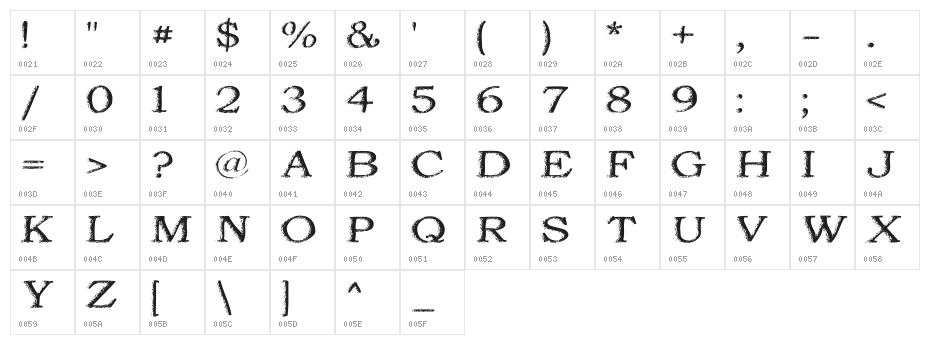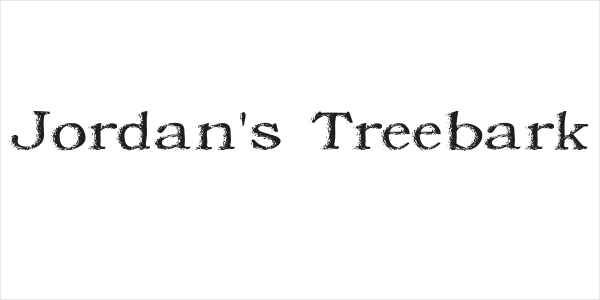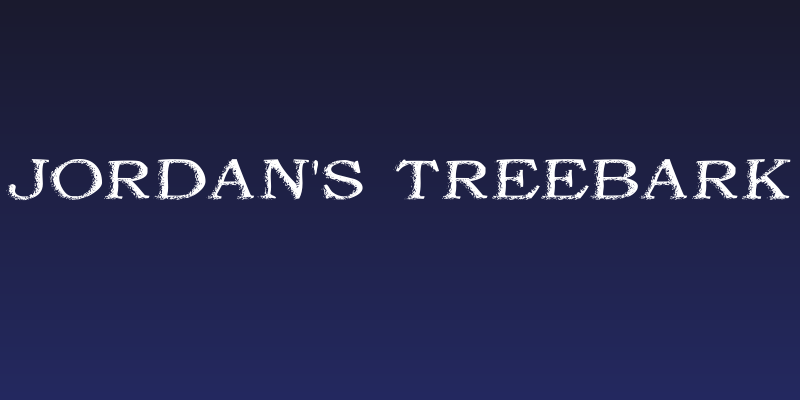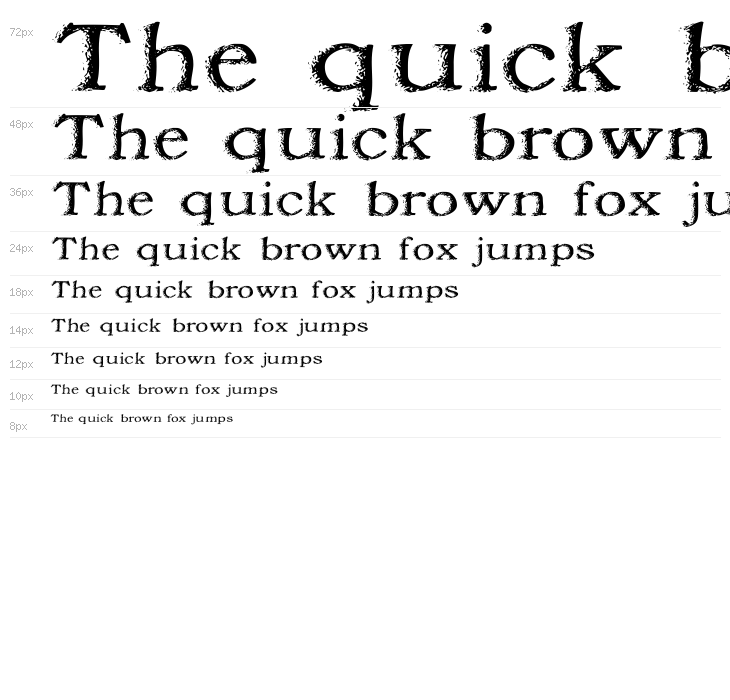
Jordan's Treebark Font
Jordan's Treebark Description
This font features a textured, bark-like appearance that gives it a rugged and natural feel. The characters are bold and slightly irregular, mimicking the organic patterns found in tree bark. This unique texture adds depth and character, making it stand out in any design. The uppercase and lowercase letters maintain a consistent style, with numbers and special characters following suit. The font's distinct style makes it ideal for projects that require a natural or rustic aesthetic.
| Proposed Projects | Ideal for nature-themed designs, outdoor event posters, eco-friendly brand logos, and rustic wedding invitations. |